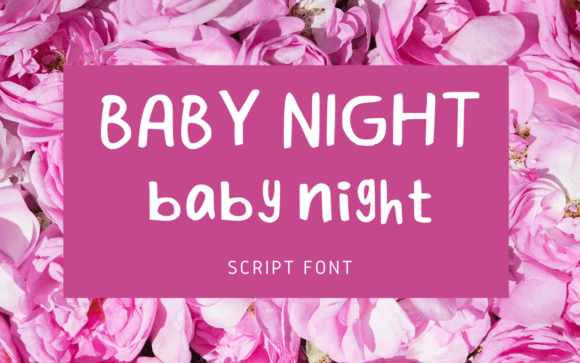
Discover the Magic of Baby Night Font
Have you ever been working on a design project, pouring over ideas and inspiration, only to have it all come together in a flash of creativity? That’s what happened to me when I stumbled upon the Baby Night Font. It’s a fresh and natural handwritten font that perfectly captures the essence of whimsy and charm.
As a designer, I know how hard it can be to find the perfect font to match your vision. That’s why I’m excited to share with you the Baby Night Font, a versatile and stylish font that’s perfect for a wide range of design ideas. Whether you’re working on a baby book, a wedding invitation, or a social media campaign, this font is sure to bring your design to life.
What sets Baby Night Font apart is its unique blend of elegance and playfulness, making it a valuable addition to any designer’s toolkit. With its natural, handwritten feel, it’s sure to add a touch of personality to any project.
Baby Night Font Key Features
- Font Family: Baby Night Font is a unique, hand-drawn font designed to evoke a sense of whimsy and playfulness.
- Character Set: The font includes a wide range of characters, including uppercase and lowercase letters, numbers, and punctuation marks.
- Unique Characteristics: Baby Night Font features a distinctive, hand-drawn style with subtle imperfections, giving it a charming and personal touch.
Baby Night Font Review
Overall, I think the Baby Night Font is a sweet and charming font that could be a great addition to certain designs. ✨ The flowing, handwritten style has a soothing quality that’s perfect for baby-related projects or any design that needs a touch of warmth.
Some of the things that work well with this font include:
- Its playful, cursive feel that’s perfect for adding a whimsical touch to designs
- Its versatility – it could work well for titles, headings, or even body text in the right context
- Its ease of readability, even at smaller font sizes
- ⚠️ The font may be too cursive or ornate for some designs, potentially making it hard to read at certain font sizes
- ⚠️ It may not be the best choice for formal or professional designs, as it has a more playful feel
- ⚠️ Some users may find the font too “babyish” or immature for certain projects
Overall, I think the Baby Night Font is a lovely font that could be a great choice for the right project. With some careful consideration of its limitations, it could add a charming touch to designs that need a little extra warmth and personality.
Tips for Getting the Most Out of Baby Night Font
Use Baby Night Font for baby-themed designs, such as nursery decorations, baby shower invitations, and children’s book illustrations.
Combine Baby Night Font with other fonts for a unique and creative look.
Baby Night Font is perfect for:
Designing nursery decorations, such as wall art and bedding.
Creating baby shower invitations and party decorations.
Alternatives to Baby Night Font for Designers
Great Vibes Font is a beautiful, cursive font that is perfect for adding a touch of elegance to your designs. It’s great for use in wedding invitations, birthday cards, and other special occasions. Great Vibes Font is a more elegant and sophisticated alternative to Baby Night Font, with a more refined and polished look.
Lobster Font is a fun, playful cursive font that is perfect for adding a touch of whimsy to your designs. It’s great for use in social media graphics, blog posts, and other casual content. Lobster Font is a more casual and laid-back alternative to Baby Night Font, with a more relaxed and carefree feel.